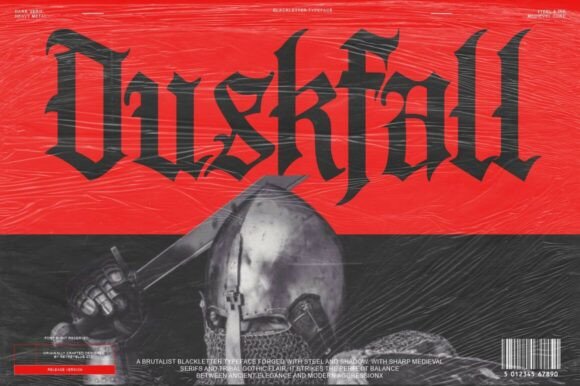
Duskfall: A Blackletter That Earns Its Place
First glance at Duskfall isn’t about novelty—it’s about presence. This isn’t a blackletter that shouts from the rafters or leans into gothic cliché. It carries weight, yes, but also quiet authority. The letterforms are tightly constructed, with deliberate contrast between thick strokes and fine hairlines—not brittle, not fussy, but controlled. There’s warmth in the terminals, restraint in the flourishes, and a subtle asymmetry that keeps it feeling hand-informed rather than machine-perfect. It reads as crafted, not copied. If you’re used to blackletters that feel like costume jewelry—ornamental but hollow—Duskfall lands differently. It feels like a typeface built for real work.
Where Duskfall Actually Fits in Real Projects
It’s rare to find a blackletter that works across both physical and digital touchpoints without compromise—and Duskfall does. In logo design, it holds up remarkably well at small sizes when simplified (think monogram lockups or wordmarks with tight kerning). On packaging design, especially for artisanal goods—small-batch whiskey, craft ink, limited-run ceramics—it adds gravitas without alienating. The rhythm of its letter spacing supports legibility on curved surfaces and textured substrates, something many display fonts fail at.
For editorial design, Duskfall shines as a chapter opener or pull-quote font—not body text, never that—but where you need a pause, a breath, a moment of visual intention. In social media graphics, it performs best on dark backgrounds with generous padding; avoid thin white strokes on light gradients. As a commercial font, it’s equally effective on merch (screen-printed tote bags, embroidered patches) and high-end product labels (foil-stamped boxes, embossed hang tags).
We’ve used Duskfall in web design headers with great success—but only as display text. Never as navigation, never as paragraph copy. It pairs cleanly with a sturdy sans serif (like Inter or Poppins) for contrast that feels intentional, not jarring. And for printable design—think wedding invitations, gallery announcements, or boutique stationery—it delivers richness in CMYK without muddying, especially when printed on uncoated stock.
Where to Use It—And Where Not To
Duskfall belongs in short, high-impact contexts:
- Brand marks and logotypes (especially for heritage-leaning or craft-forward businesses)
- Poster headlines and event titles (where tone matters more than speed of reading)
- Social posts with minimal copy—single-line statements, quotes, or campaign slogans
- Premium packaging accents (not full ingredient lists)
- Merchandise where typography is part of the product’s aesthetic (e.g., enamel pins, vinyl decals)
- Canva templates aimed at creatives or small business owners who value distinction over convenience
It’s not suited for long-form content, UI labels, data tables, or anything requiring rapid scanning. Don’t force it into email subject lines or mobile app buttons. And while it’s a compelling creative font, it won’t soften a tech startup’s vibe—it deepens it, which may be exactly what you want… or exactly what you don’t.
How It Shapes Perception—and Why That Matters
Typeface choice is never neutral. With Duskfall, you’re signaling craftsmanship, continuity, and considered attention—not nostalgia for its own sake. That affects brand consistency in subtle but measurable ways: clients report higher perceived value on products using Duskfall in their identity system, and audiences linger longer on posters where it anchors the hierarchy. It doesn’t chase trends—it reinforces trust through visual coherence.
That said, readability remains conditional. At 16px on screen, even bold weights start to blur. At 8pt in print? Only as initials or tightly spaced caps. So yes—it’s a premium font, but one that demands respect for its limits. When used well, it elevates professionalism. When misapplied, it reads as decorative clutter. There’s no middle ground.
Practical Designer Notes You’ll Actually Use
Before locking in Duskfall for client work or your own digital product, do these five things:
- Test it in black and white first. Many blackletters rely on color or texture to mask weak contrast—Duskfall stands up fine, but verify on your output medium.
- Check small-size readability on real mockups—not just your screen. Print a 12pt sample on your intended paper stock. View it at arm’s length. Then step back three paces.
- Compare uppercase vs. lowercase usage. Duskfall’s lowercase has distinct personality—less formal, more approachable—but it’s not always harmonious beside all-cap settings. Don’t assume they’ll mix seamlessly.
- Review spacing rigorously. Auto-kerning rarely handles blackletter rhythm well. Manually adjust tracking in logo applications and tighten line-height in editorial use.
- Pair it deliberately. Try it beside a warm serif font (like Adobe Garamond), a clean sans serif (like Helvetica Now), a relaxed script font (not overly ornate), a grounded handwritten font (for contrast, not competition), and another display font (to avoid visual fatigue). Notice where hierarchy clarifies—and where it collapses.
Duskfall isn’t background music—it’s the soloist. It doesn’t blend. It defines. That makes it powerful in brand identity, packaging design, and social media graphics where standing out is the goal—but only if you’re willing to build around it, not bolt it onto existing layouts. It rewards thoughtful application and punishes lazy defaults. For designers who treat typography as infrastructure—not decoration—it’s a rare blackletter that earns its place in the working toolkit. Not every project needs it. But when one does, Duskfall doesn’t just fit. It settles in, holds space, and quietly insists on being taken seriously.